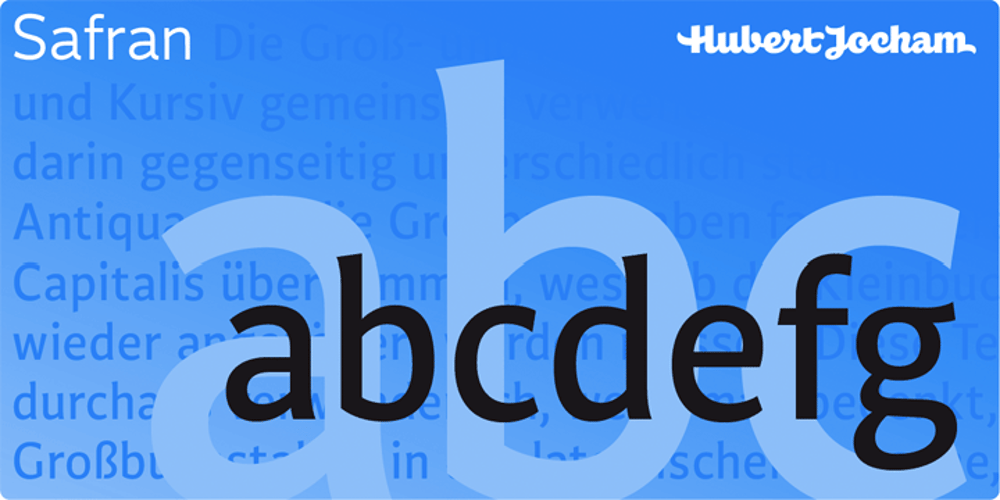
Safran Font Family was designed by Hubert Jocham and published by Hubert Jocham Type. Safran contains 18 styles and family package options. Besides all the display and script typefaces I design, my real passion is to design typefaces for copy. Safran is the first of my sans serif workhorse families available from Myfonts. Starting from a light version there are nine weights up to the strong ultrabold. All with italics. What was the inspiration for designing the font? I wanted to create a clear and elegant typeface with a wide variety of weights and proportions that are easy to use in corporate branding and magazines. What are its main characteristics and features? contemporary humanist legible sans serif Usage recommendations: corporate branding, magazines and other publications Elegant, clear and very legible.